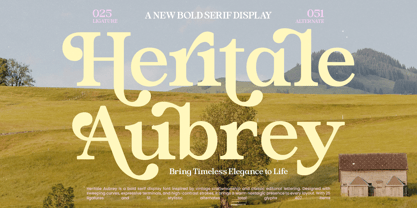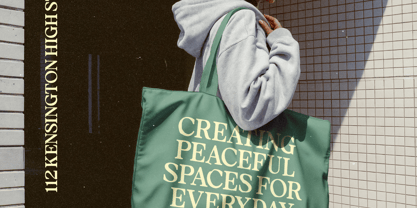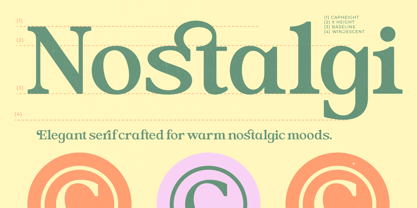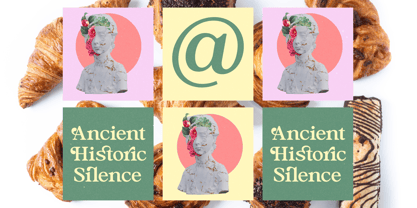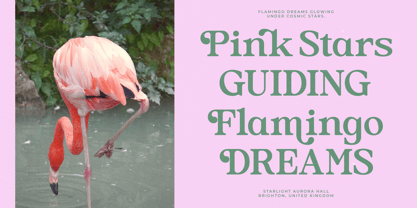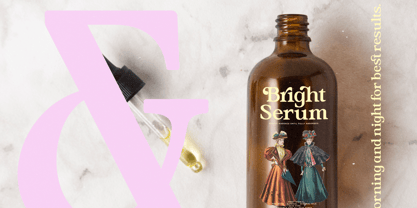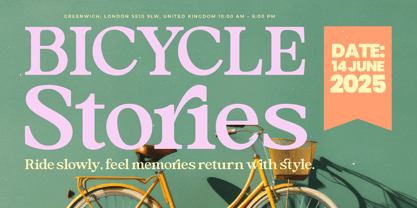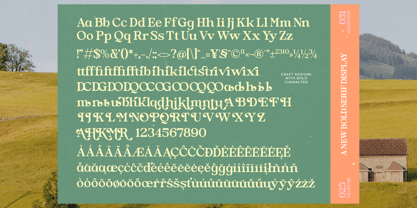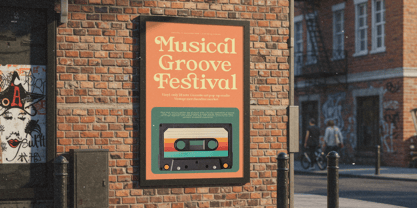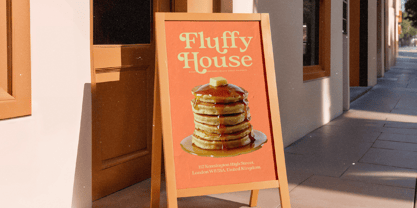
Heritale Aubrey
The Heritale Aubrey Font Family was designed by Heru Utama Putra and published by Timelesstype Studio. Heritale Aubrey contains 2 styles and family package options. More about this family
Heritale Aubrey is a bold serif display font inspired by vintage craftsmanship, classical editorial lettering, and expressive high-contrast strokes. With its sweeping curves, warm nostalgia, and charming decorative terminals, this typeface is perfect for magazine titles, boutique branding, packaging, book covers, wedding concepts, posters, and artistic logo design. It brings timeless elegance, editorial sophistication, and a beautifully nostalgic presence to any layout.